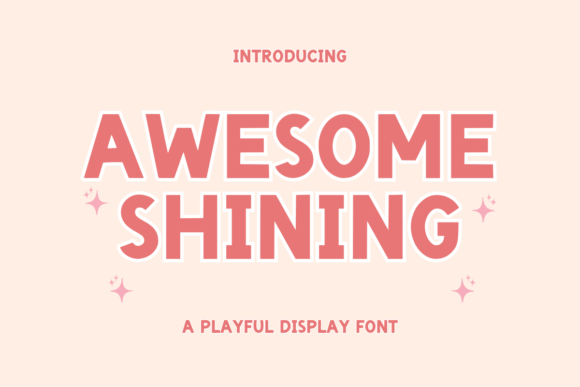
Introduction to Awesome Shining Font
Awesome Shining is a sweet and friendly display font.
Key Features of Awesome Shining Font
Why Choose Awesome Shining Font?
Awesome Shining Font offers exceptional quality and versatility, making it a valuable addition to your design toolkit. Whether you’re creating for personal projects or commercial use, Awesome Shining Font delivers professional results.